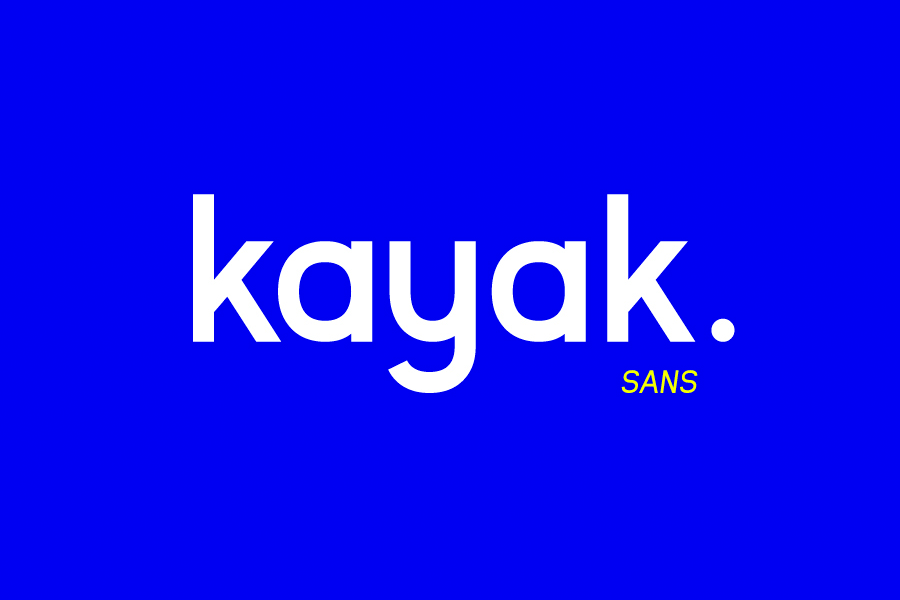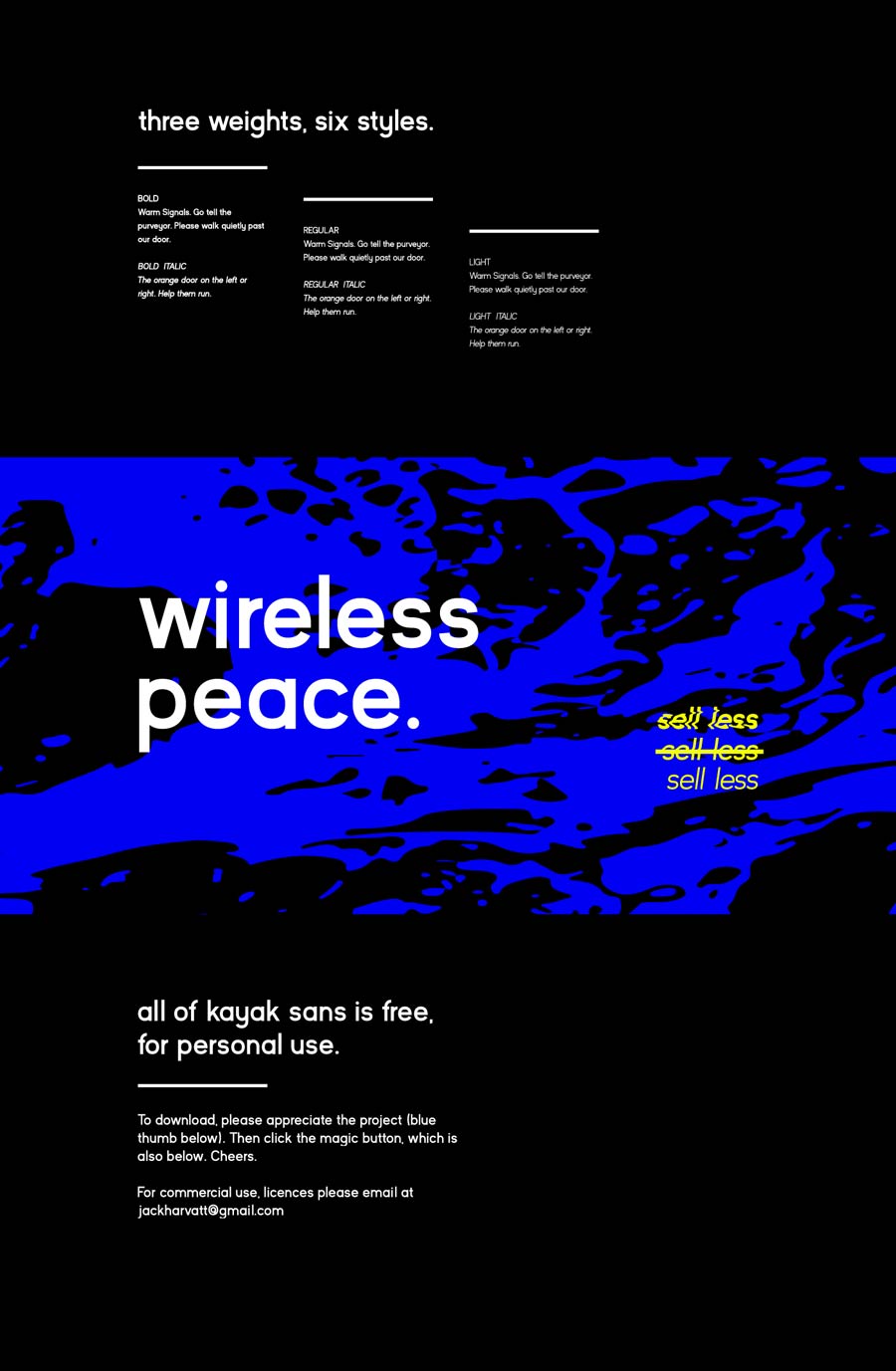
Kayak Sans is a modern grotesque type designed with the intention of not standing out. It comes with 3 weights: regular, bold and light, each accompanied with the italic version. It’s a modern font but still has the classic look of the old sans-serif typefaces, giving it a sense of timeless and eternity.
- Designer: Jack Harvatt
- Styles: 6
- Category: Sans Serif